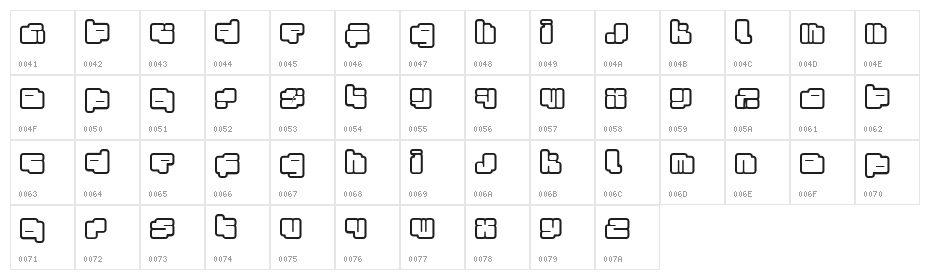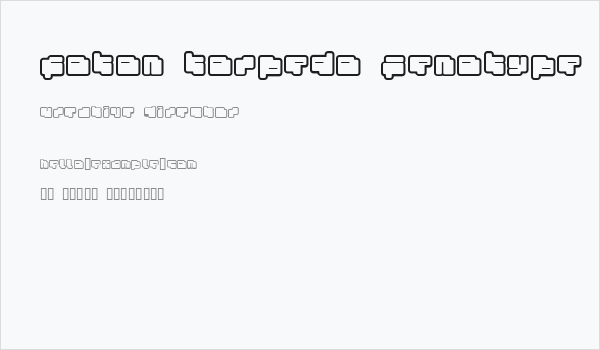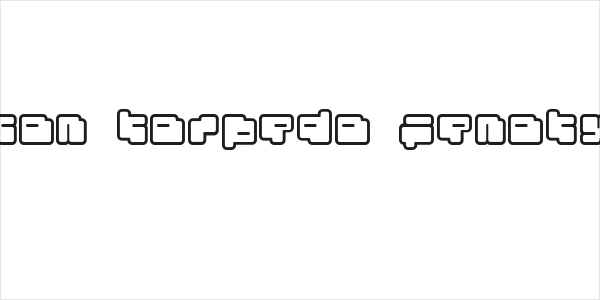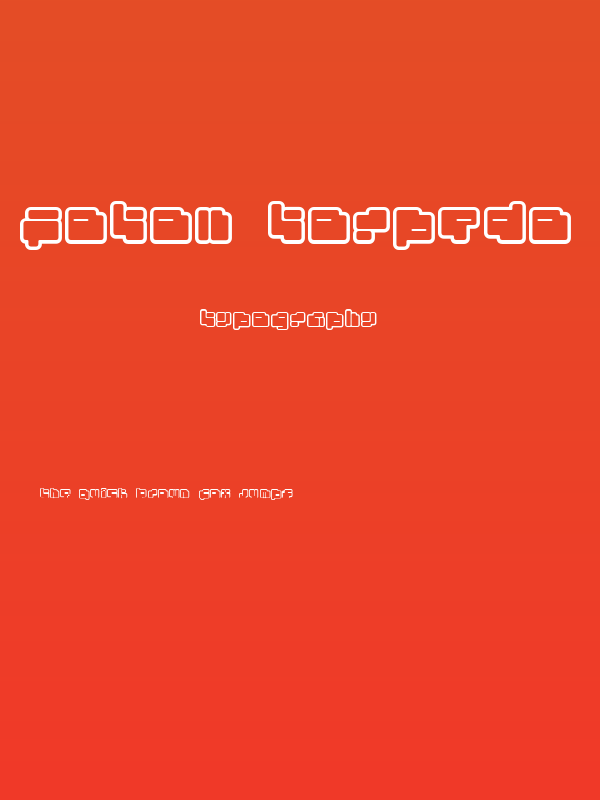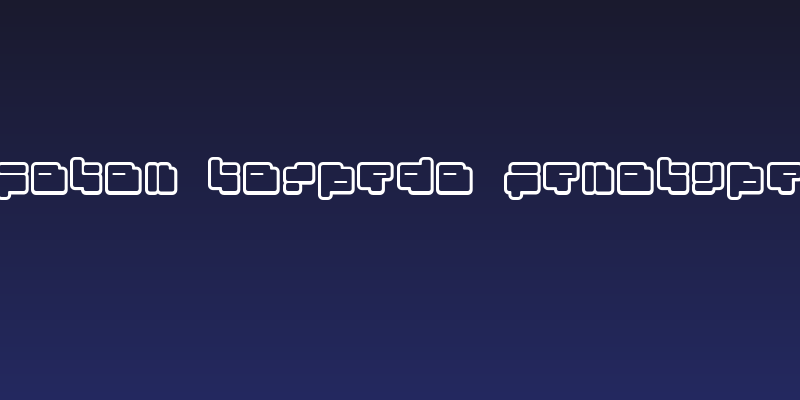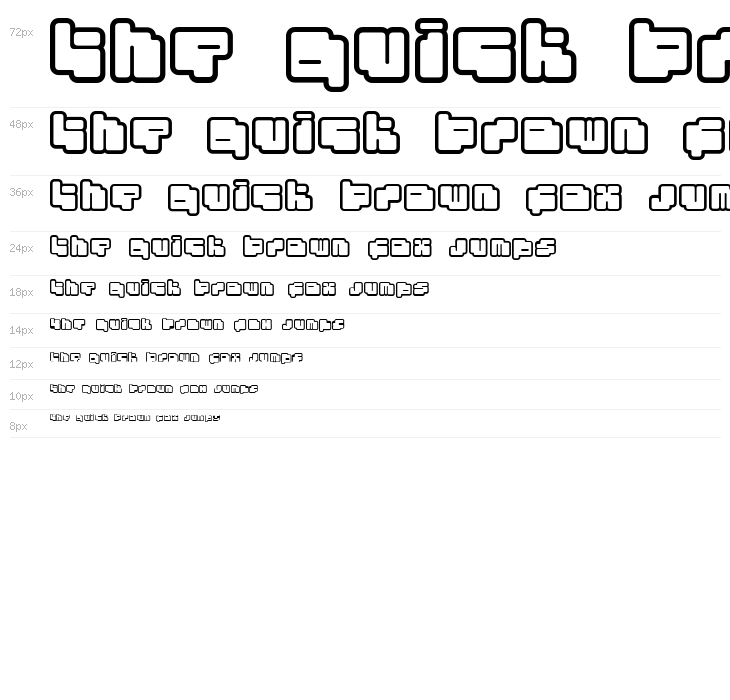
foton torpedo Fenotype Font
foton torpedo Fenotype Description
This font features a bold, geometric design with a distinct outline style that gives it a futuristic and playful appearance. The characters are constructed with rounded edges and a consistent thickness, creating a uniform and cohesive look. The uppercase and lowercase letters maintain a similar structure, enhancing readability while retaining a unique aesthetic. The numerals and special characters follow the same design principles, ensuring a harmonious overall appearance. This font's bold and outlined nature makes it stand out, ideal for eye-catching designs.
| Proposed Projects | Ideal for posters, logos, video game graphics, and any project needing a modern, standout typeface. |